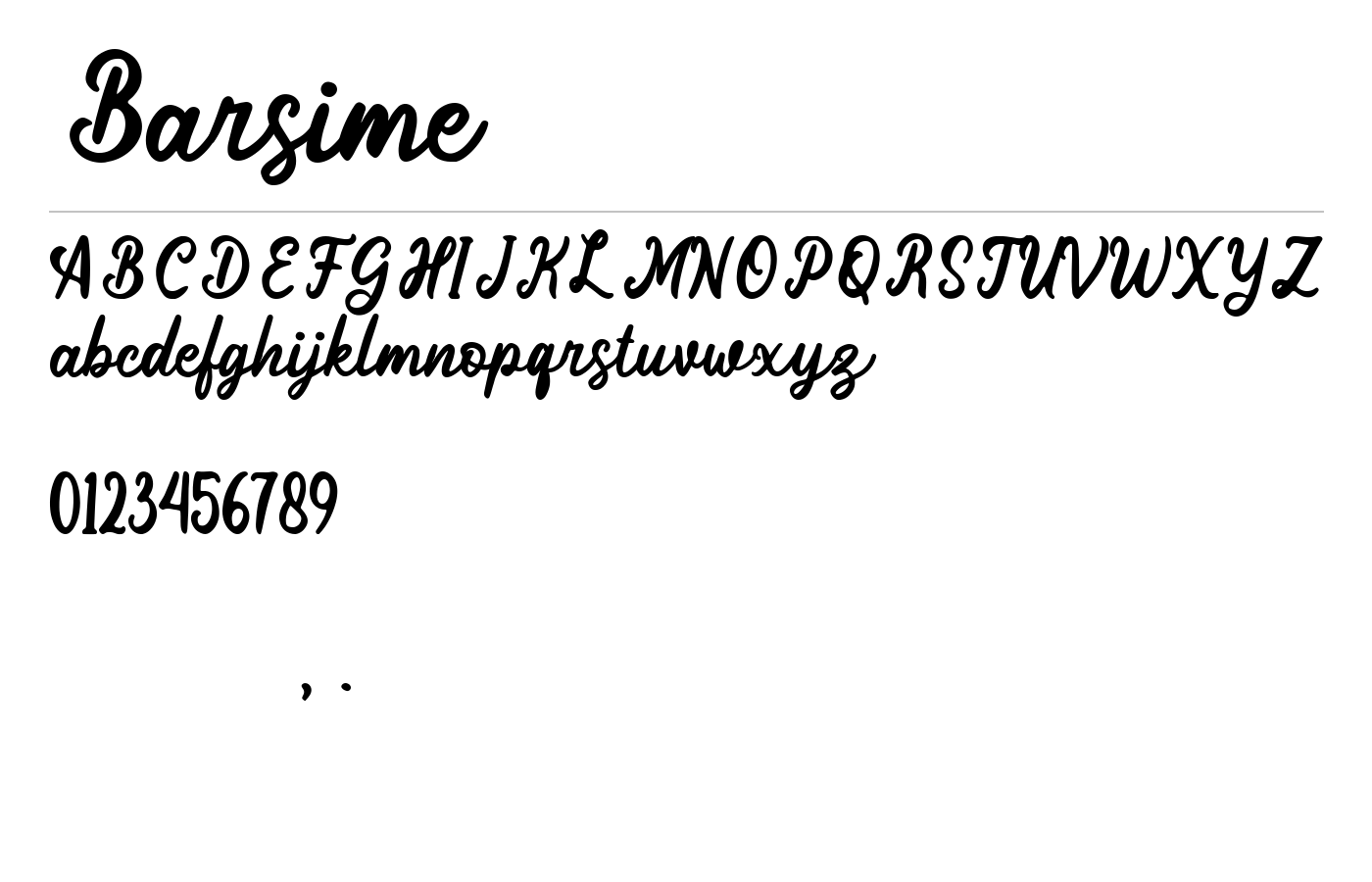
Barsime is a playful and elegant script font with a smooth, flowing style that mimics natural handwriting. Its rounded, moderately thick strokes and connected letterforms give it a friendly yet refined personality, making it ideal for invitations, branding, and editorial use where a personal yet polished look is desired. This font works well in contexts that call for warmth and creativity while maintaining legibility and charm.
Barsime Font
About Barsime Font